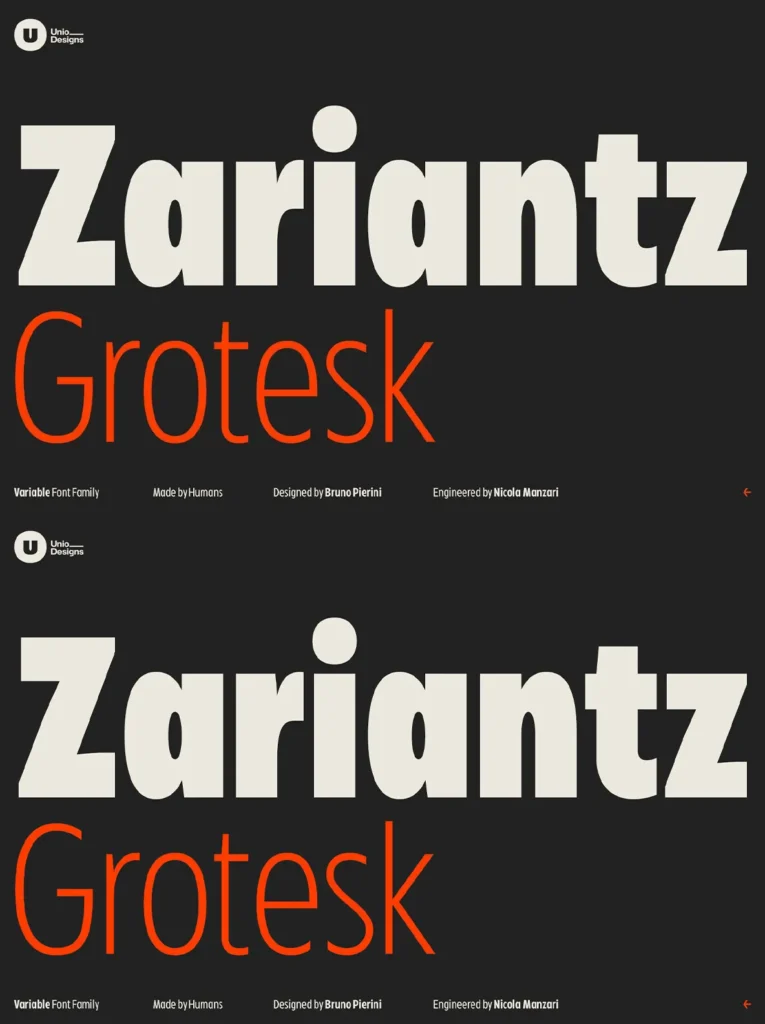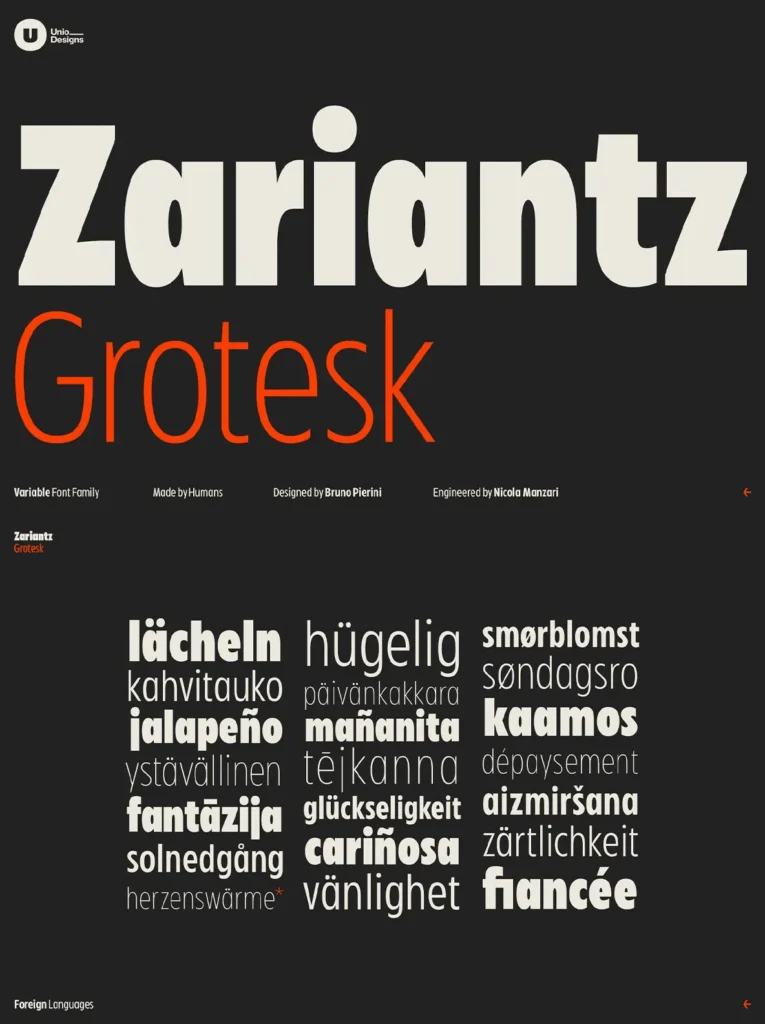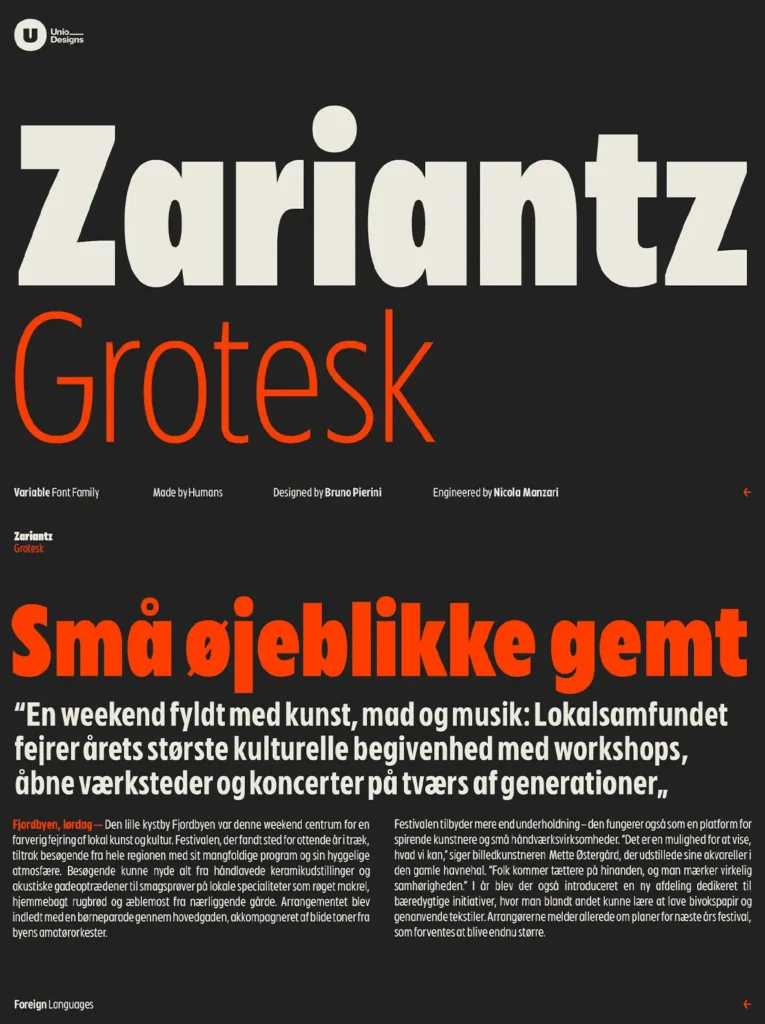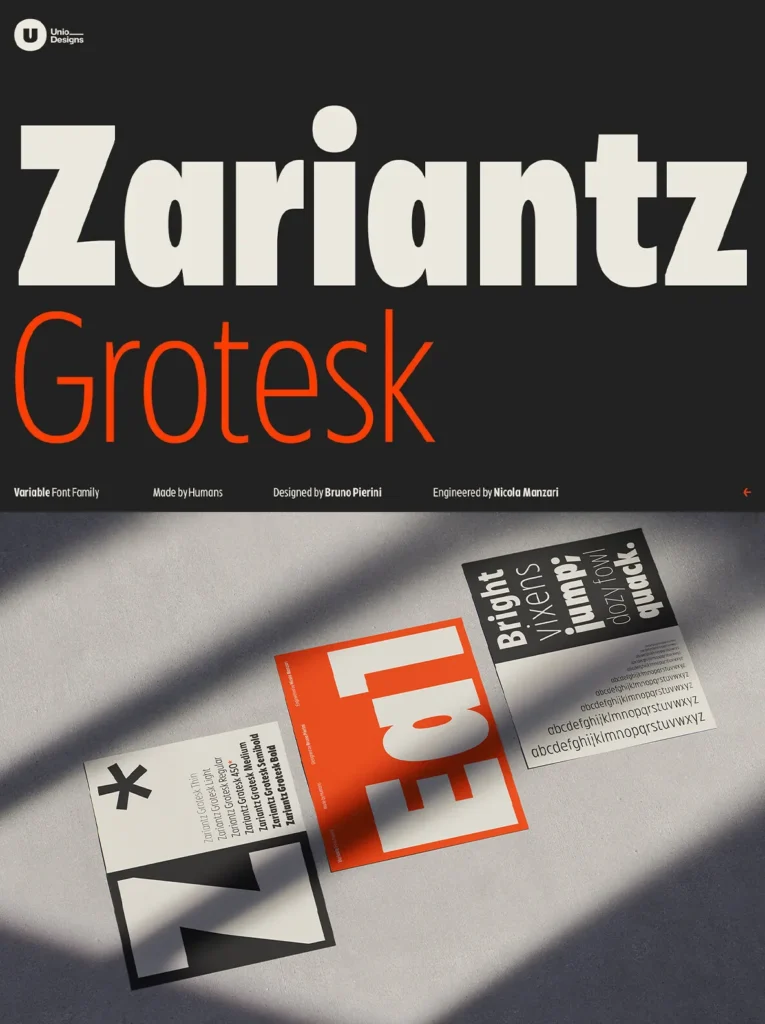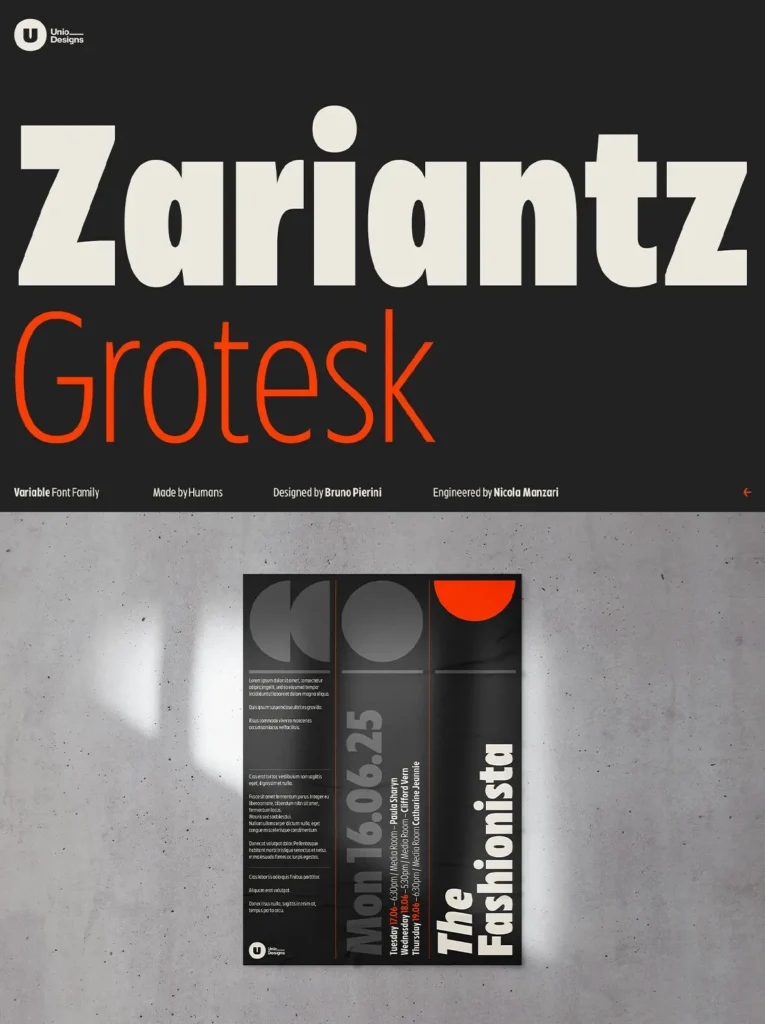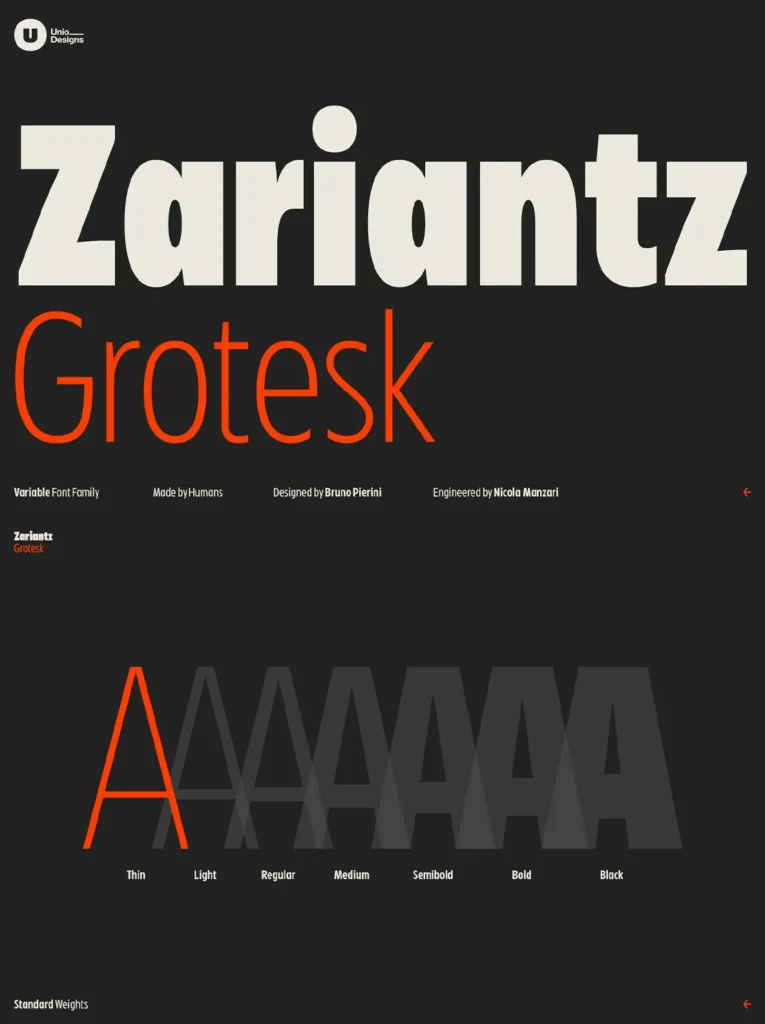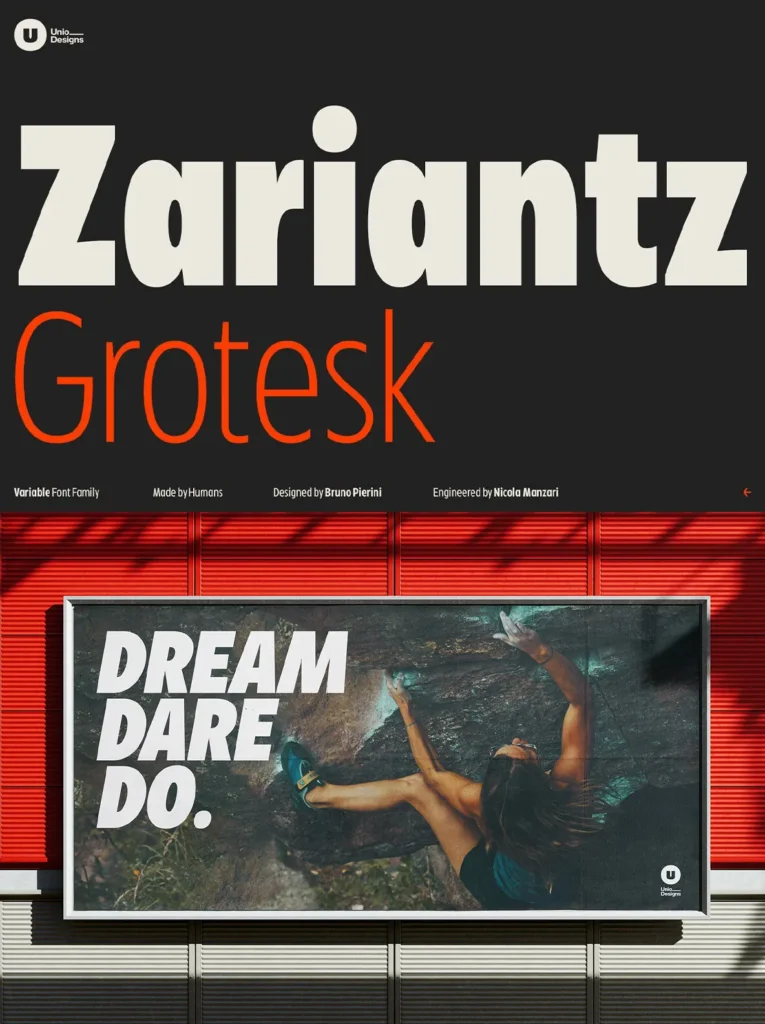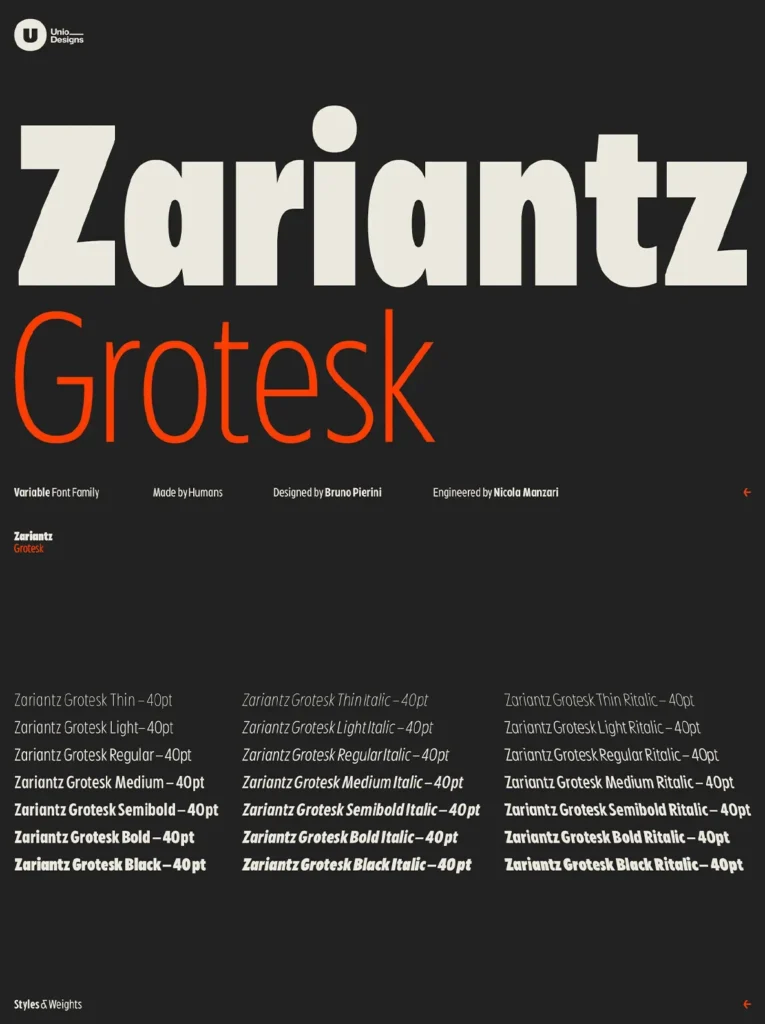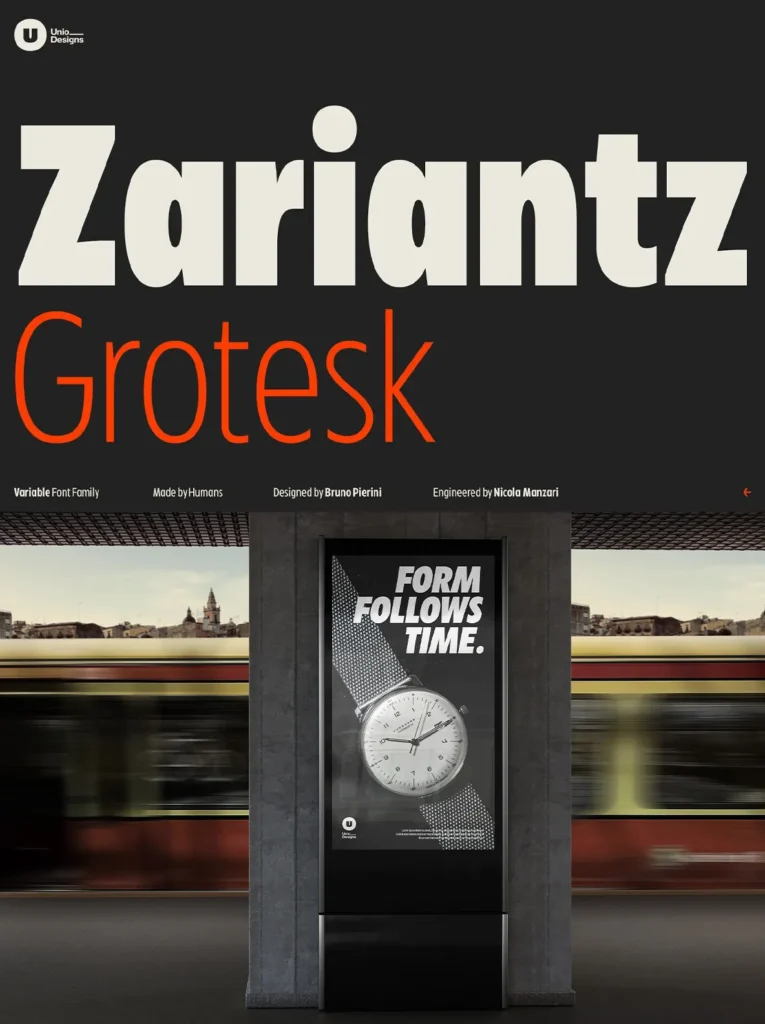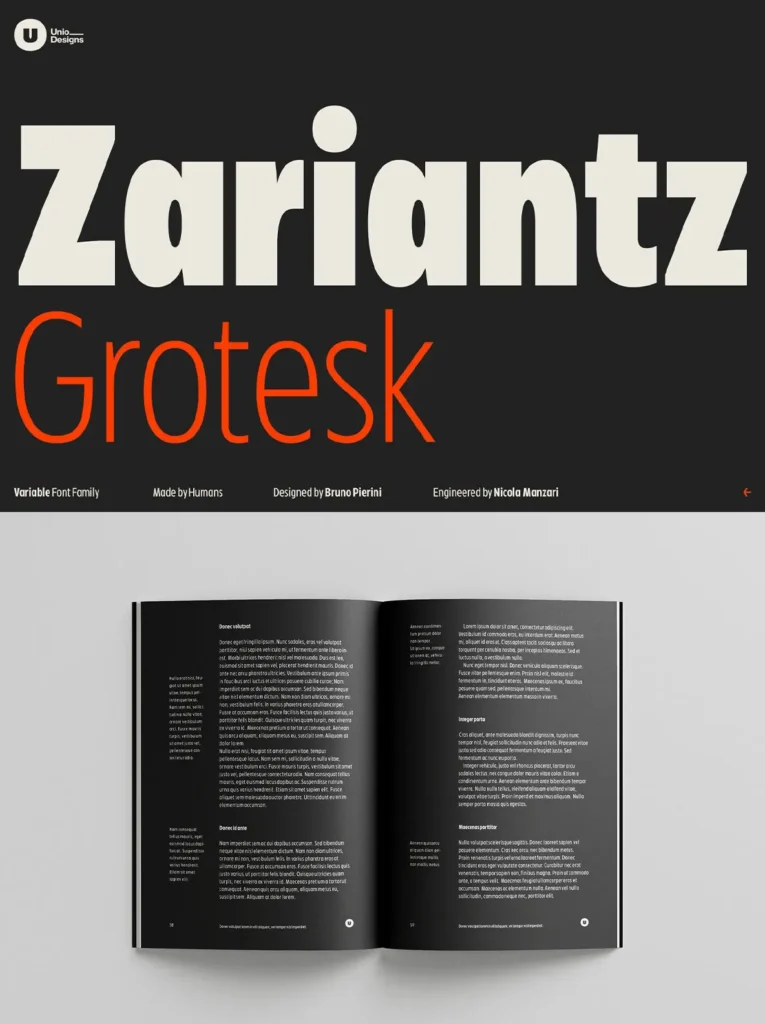
Zariantz Grotesk Variable — Modern, Humanist Clarity
Inspired by a contemplative walk through Casamassima in Puglia, Zariantz Grotesk Variable pays homage to Hrand Zariantz, the celebrated Armenian-Italian literary figure. This sans serif typeface starts from a narrow grotesque foundation and balances handcrafted artistry with geometric precision. The result feels thoughtful and controlled, with a clean rhythm that stays readable at many sizes.
Zariantz Grotesk is known for adapting across branding, editorial design, digital interfaces, and grand displays. Built for versatile typography, it carries a contemporary humanist tone that supports modern design systems without losing personality. Whether you need a steady text voice or a confident display presence, it offers clarity and consistency across use cases.
Features
Advanced OpenType Toolkit
– Old-style figures, case-sensitive forms, alternate glyphs.
Multilingual Support
– Extensive language coverage for global projects.
Creative Numericals
– Includes numerators, denominators, and custom ligatures.
Distinctive Arrows
– A set of multidirectional arrows for unique design elements.
This typeface is designed to offer flexibility and functional elegance, making it an ideal choice for those seeking a modern yet timeless solution for their design endeavors.